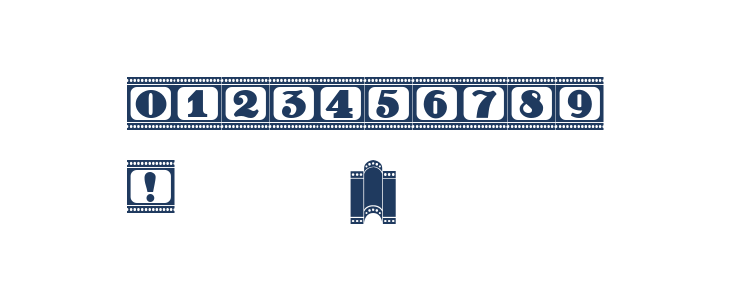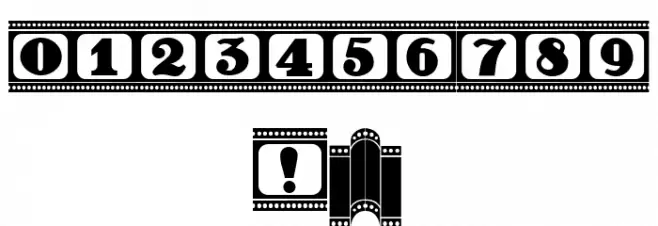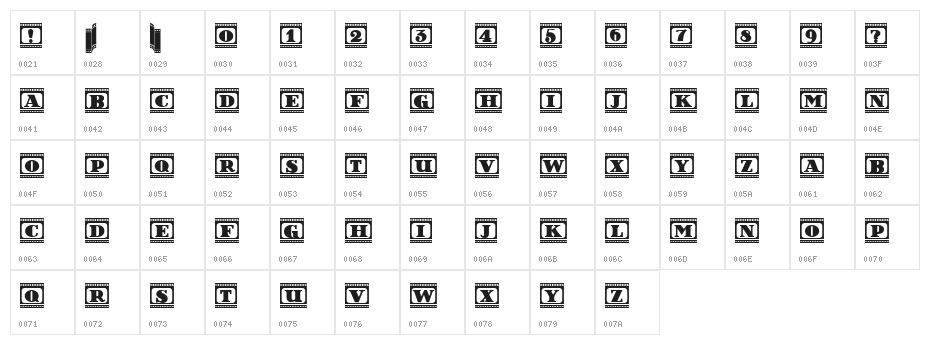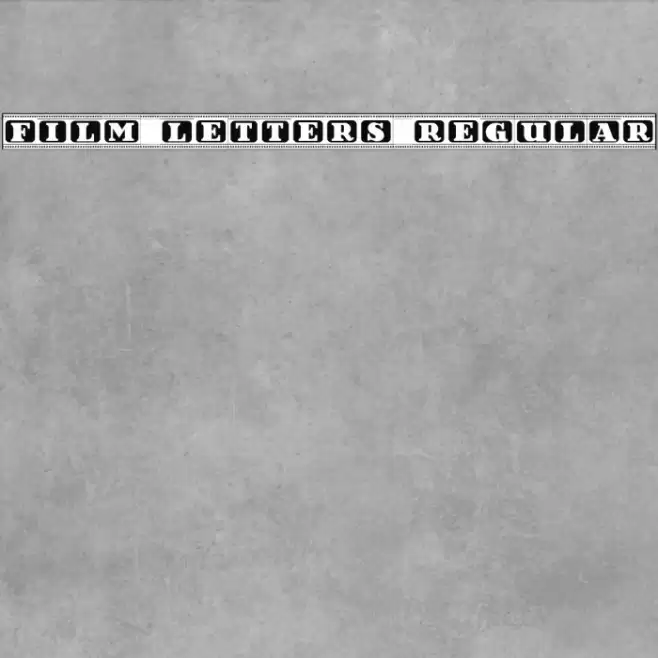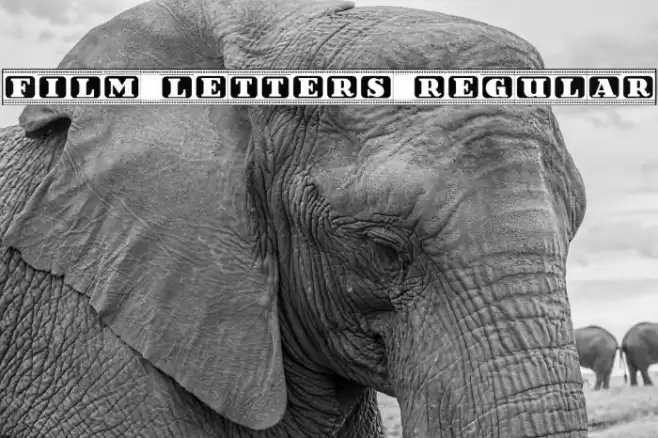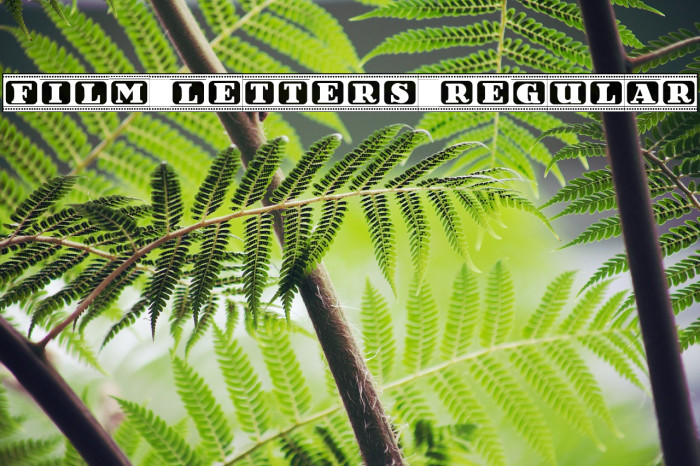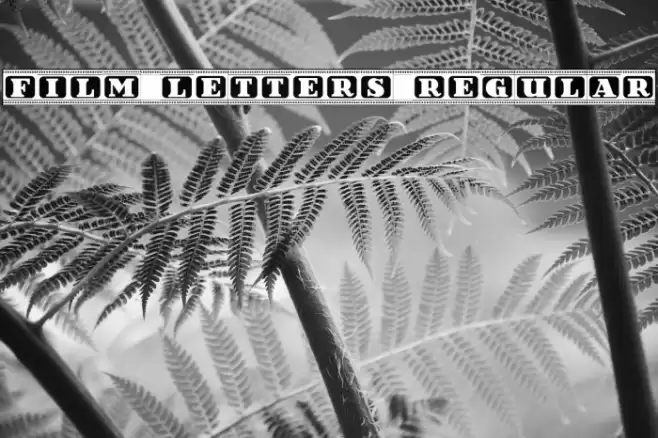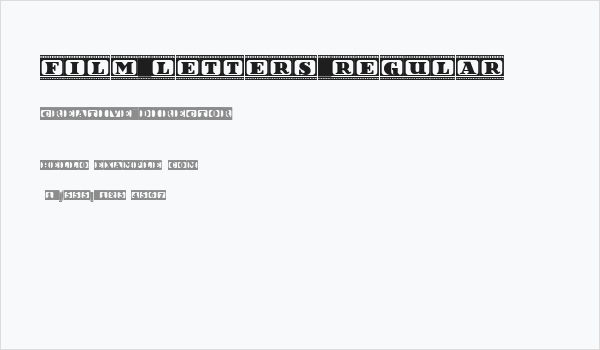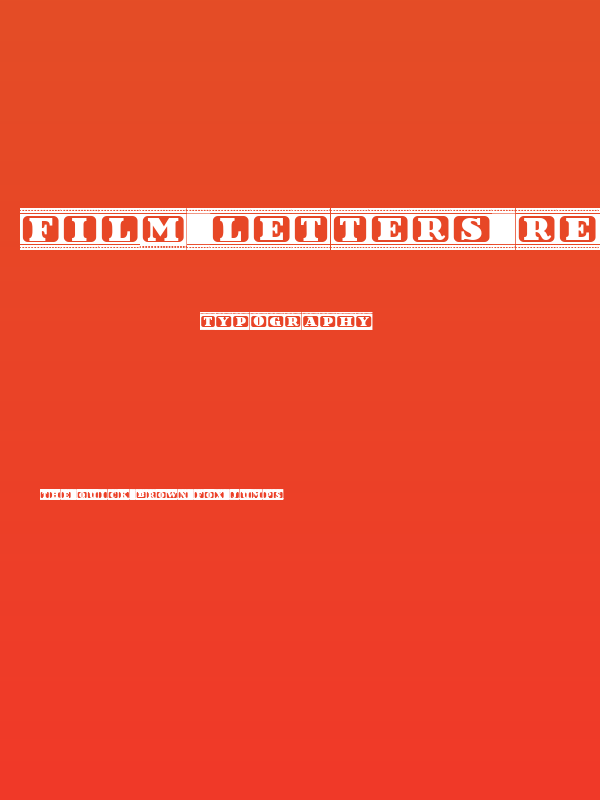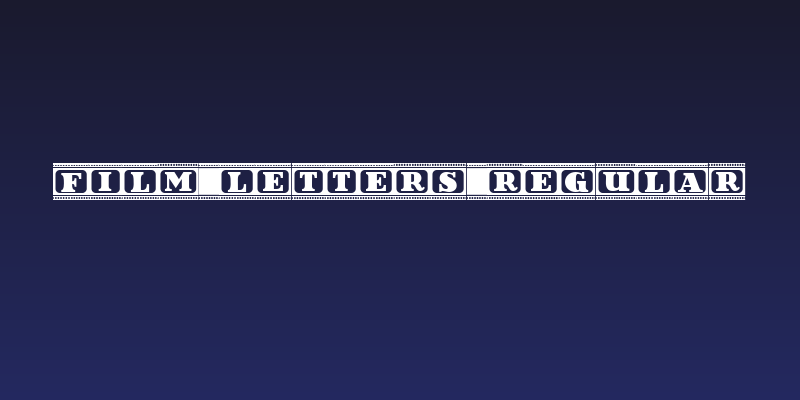
Film Letters Regular Font
Film Letters Regular Description
This font features a unique design where each character is enclosed within a stylized filmstrip frame, giving it a cinematic and retro feel. The letters and numbers are bold and prominent, ensuring high visibility. The characters are uppercase, with a consistent width and height, creating a uniform appearance. The filmstrip border adds a decorative element, making it ideal for projects that require a vintage or movie-themed aesthetic. The font's distinct style is both playful and nostalgic, reminiscent of classic film reels.
| Proposed Projects | Ideal for movie posters, film festival promotions, retro-themed designs, and entertainment industry branding. |